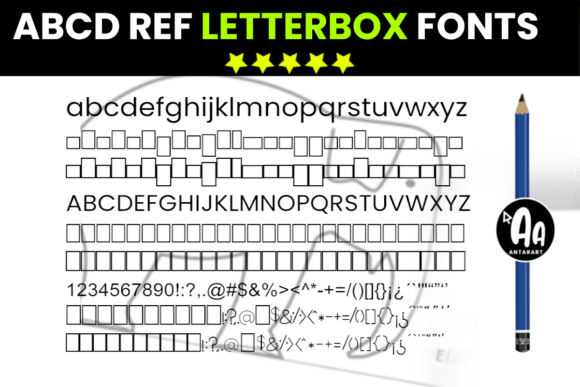
Introduction to Letterbox Font
Do you remember the countless hours you spent as a child, carefully crafting letters on a worksheet, making sure each stroke landed in its perfect spot? Those early days of learning to write were not only a time of discovery but also a testament to the power of visual learning. Today, educators and designers are leveraging this concept to create engaging learning experiences for young minds. One such innovative design resource is the Letterbox Font, a classroom-friendly typeface that brings phonics instruction to life through its unique boxed letter format.
As a design enthusiast, you’ll appreciate the high quality and versatility of this font, perfect for creating custom worksheets, printables, and even online resources. With a transparent background, the possibilities are endless. Whether you’re working on a creative project or need a reliable design resource, the Letterbox Font is an invaluable asset. And the best part? It’s available for free download, making it an accessible tool for educators and designers alike.
Key Features of Letterbox Font
- High-quality design resource with a transparent background, perfect for creative projects.
- Designed with a unique aesthetic, making it ideal for adding a touch of sophistication to your design.
- Resolution-independent, ensuring crisp and clear display regardless of the screen resolution.
- Includes a wide range of characters, including uppercase and lowercase letters, numbers, and special symbols.
- Perfect for use in graphic design, digital art, and other creative projects where a high-quality font is required.
Honest Review: Letterbox Font
I recently had the chance to work with the Letterbox Font, and I must say it’s been a game-changer for my creative projects. The high quality of this font is immediately noticeable, making it a valuable addition to my design resource collection.
- High quality and crisp lines ✨
- Transparent background for easy design integration ✨
- Limited font styles and weights ⚠️ (may not be suitable for projects requiring a wide range of font variations)
Overall, I’m really impressed with the Letterbox Font. It’s a fantastic design resource for personal projects, and with a little planning, it can also be used for commercial projects. I’d definitely recommend it to anyone looking for a high-quality, free font.
Letterbox Font is ideal for use in headings, titles, and body text in your design project. To get the most out of it, use it in conjunction with other high-quality design resources. Common use cases include creating a professional logo, designing a brochure, or developing a marketing campaign.
Alternatives to Letterbox Font
Open Sans is a high-quality sans-serif font suitable for a wide range of creative projects. It’s available for free download and comes in a variety of weights and styles. Open Sans features a clean design and a transparent background, making it ideal for digital design and web development.
When to use: Open Sans is perfect for body text, headings, and titles in digital design, as well as for branding and marketing materials.
Comparison to Letterbox Font: Open Sans has a more modern and sleek design compared to Letterbox Font, making it a better choice for contemporary creative projects.